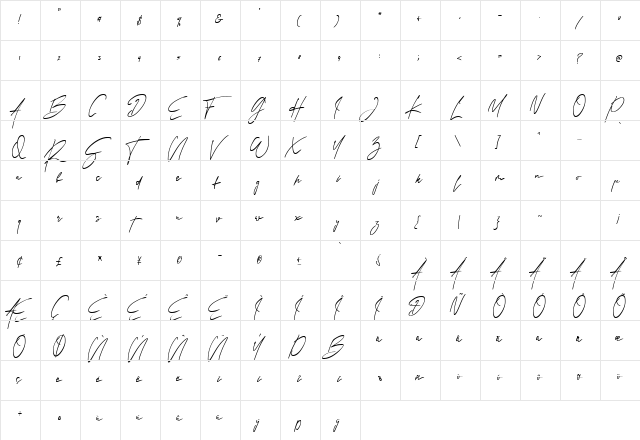
Rindu Alam Regular
| Designer | Stringlabs. 2020 |
Design Context for Rindu Alam Typeface
Rindu Alam is a composed and adaptable typeface that performs quietly and consistently across a wide range of design contexts.